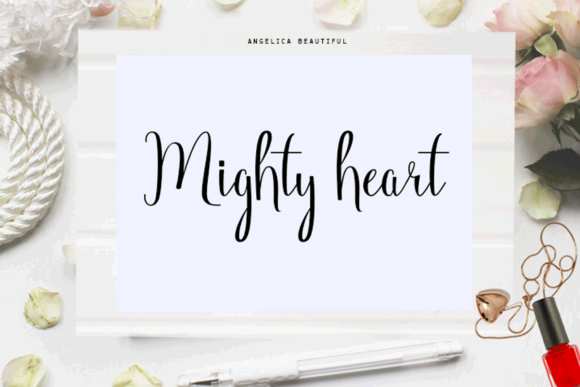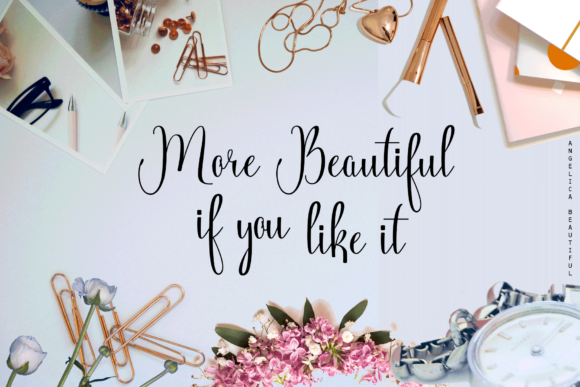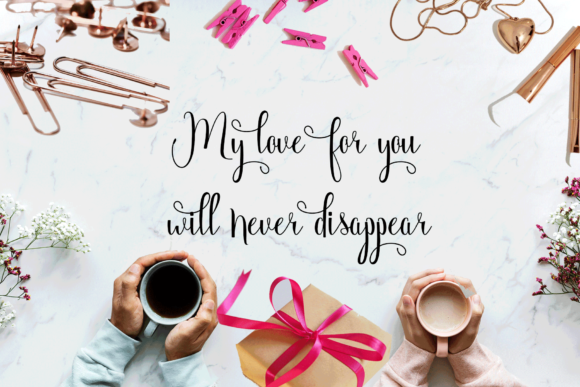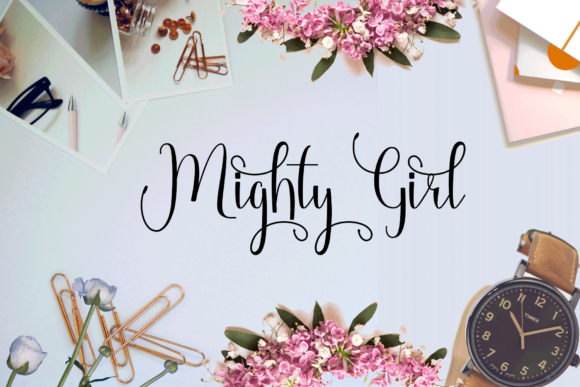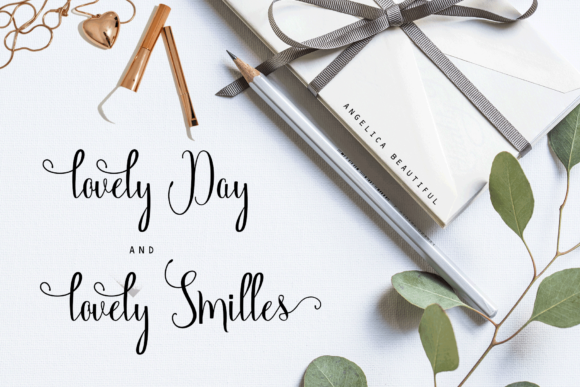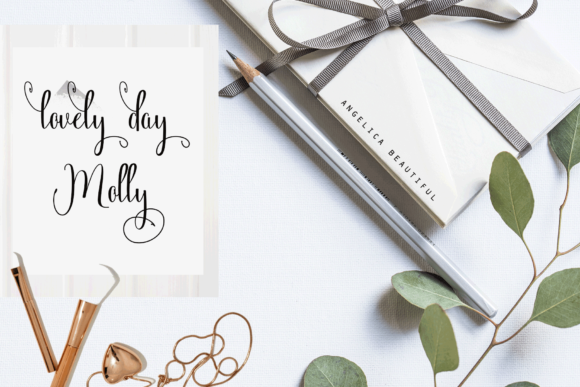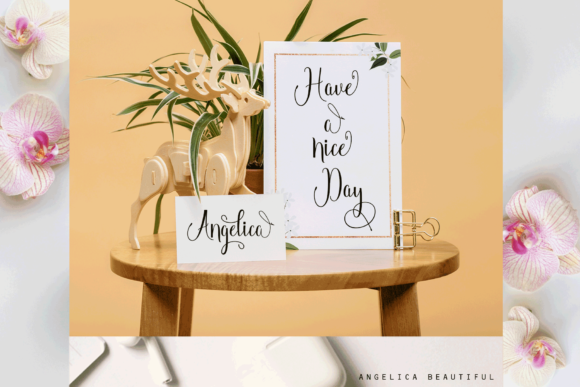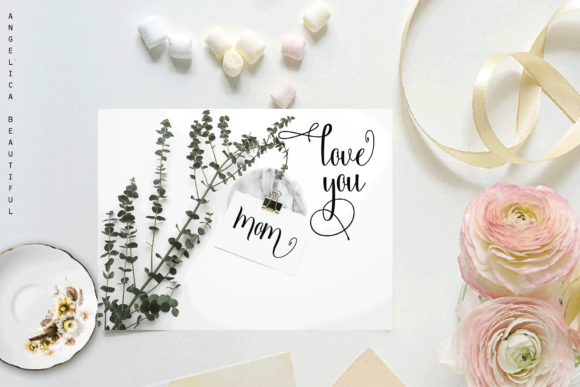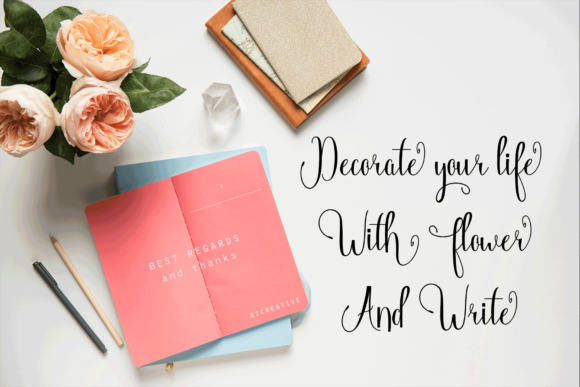
Angelica Font
About Angelica Font
The Angelica is an elegant handwritten typeface. It has natural characteristics which are perfect for invitations, blogs, social media, business cards, and more!